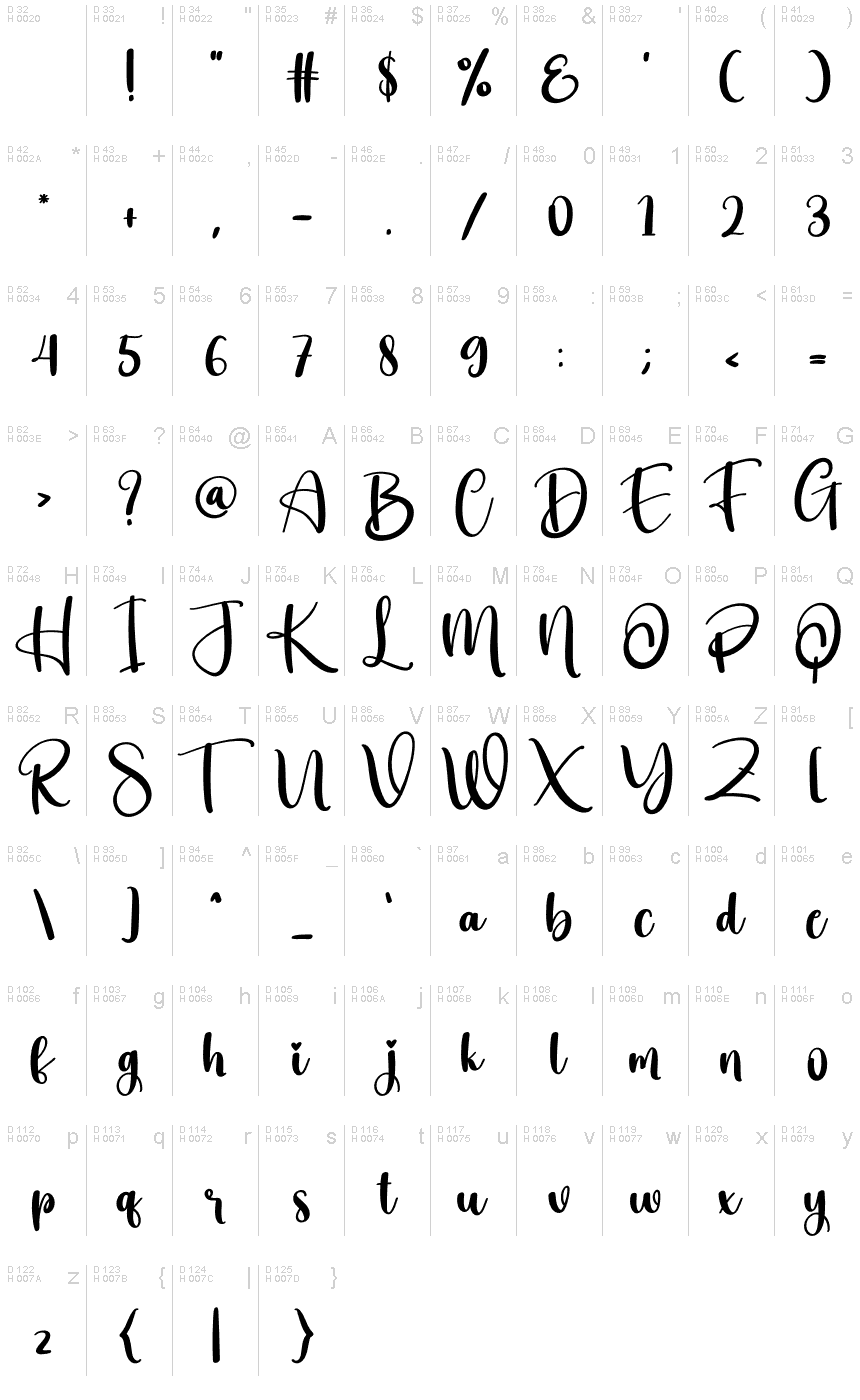
Landscape
Landscape, created by Scratchones, is a captivating handwritten font that adds a touch of whimsy to any project. Its semi-light weight makes it perfect for designs that require a delicate and airy feel.
With its flowing lines and organic strokes, Landscape is ideal for crafting wedding invitations, greeting cards, or any other project that aims to evoke a sense of elegance and grace. Additionally, this font is also well-suited for branding materials like logos or packaging designs, infusing them with a unique personality and charm.